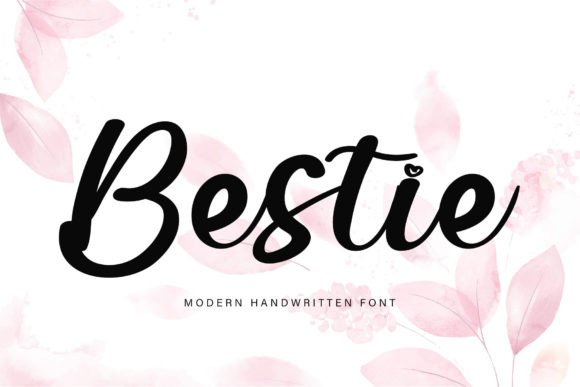
The Bestie Font: A Charming Companion for Your Design Projects
I’ll never forget the time I was working on a project for a dear friend’s birthday. I wanted to create a custom card that would capture our friendship perfectly. As I scrolled through font after font, nothing seemed quite right. That was until I stumbled upon the Bestie Font. Its smooth curves and friendly letterforms instantly resonated with me, and I knew I had found the perfect companion for my creative endeavors.
- ✅ The Bestie Font is incredibly versatile, making it suitable for a wide range of design projects, from greeting cards to social media graphics.
- ✅ Its friendly and approachable vibe makes it perfect for adding a personal touch to your designs.
- ✅ The font’s smooth curves and rounded edges give it a warm and inviting feel.
- ⚠️ While the Bestie Font is generally a great choice, it may not be the best fit for very formal or professional projects, as it can come across as too casual.
- ⚠️ Some users have reported issues with kerning, particularly when using the font at smaller sizes.
- Explore the font’s OpenType features, such as stylistic alternates and glyphs, to add an extra layer of creativity to your designs.
Even in Microsoft Word, the Bestie Font can add a touch of warmth and personality to your documents.
The Story Behind Bestie Font
The Bestie Font was designed with one goal in mind: to create a typeface that radiates friendship and warmth. Inspired by the joy of human connection, the font’s creator aimed to craft a font that would make designs feel more approachable and personal. Whether used for personal projects or professional endeavors, the Bestie Font is sure to bring a smile to your face.
Q: What makes Bestie Font so special?
A: The Bestie Font’s unique blend of smooth curves and friendly letterforms makes it a standout choice for adding a personal touch to your designs.
Q: Is Bestie Font suitable for digital designs?
A: Absolutely! The Bestie Font is optimized for digital use and looks great on a range of devices and platforms.
Q: Can I use Bestie Font for print projects?
A: Yes, the Bestie Font is also suitable for print projects, such as business cards, brochures, and posters.